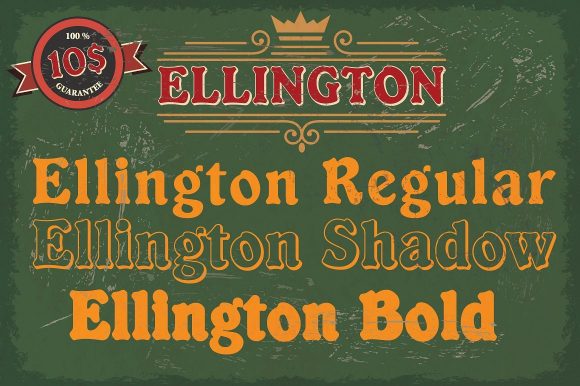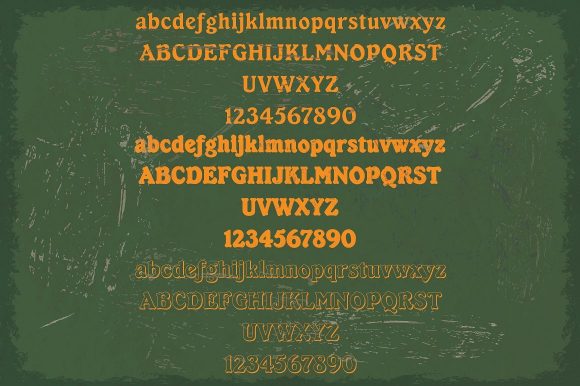
Introduction to Ellington Font
Have you ever been working on a creative project, pouring your heart and soul into a design, only to feel like something’s missing? A dash of flair, a pinch of personality, a whole lot of style? That’s where the perfect font comes in – and that’s exactly what the Ellington Font is designed to deliver.
As a valuable design resource, the Ellington Font is a game-changer for any project that needs a bold, confident statement. With its vintage charm and strong, dynamic feel, this font is sure to elevate your logotype projects and add a touch of nostalgic character to your designs. Whether you’re looking for a free download or a high-quality addition to your design arsenal, the Ellington Font is an essential find for any creative professional.
Key Features of Ellington Font
- High-quality, professional design suitable for various creative projects, including logos, branding materials, and editorial content.
- Unique, elegant design that adds a touch of sophistication to any creative project, making it an excellent addition to any design resource.
Honest Review: Ellington Font
I recently had the chance to work with the Ellington Font, and I’m excited to share my honest review with you.
- ✨ The Ellington Font offers a wide range of styles, from formal to casual, making it suitable for various creative projects.
- ✨ The high quality of the font is evident in its crisp lines and smooth curves, making it perfect for printing or digital use.
- ✨ One of the standout features of the Ellington Font is its transparent background, which allows for seamless integration with other design elements.
- ⚠️ The Ellington Font is a bit limited in its customization options, which may not be ideal for designers who need more control over their fonts.
Overall, I’m impressed with the Ellington Font, and I think it’s a great addition to any designer’s toolkit. While it may have some limitations, its high quality and versatility make it a solid choice for creative projects.
Tips for Getting the Most Out of Ellington Font
For a creative project, use the Ellington Font in conjunction with high-quality images and transparent backgrounds to create visually appealing designs. Experiment with different font sizes, colors, and styles to achieve the desired effect.
The Ellington Font is commonly used in design projects such as logos, brochures, and business cards. It is also suitable for creative projects like infographics, presentations, and posters.